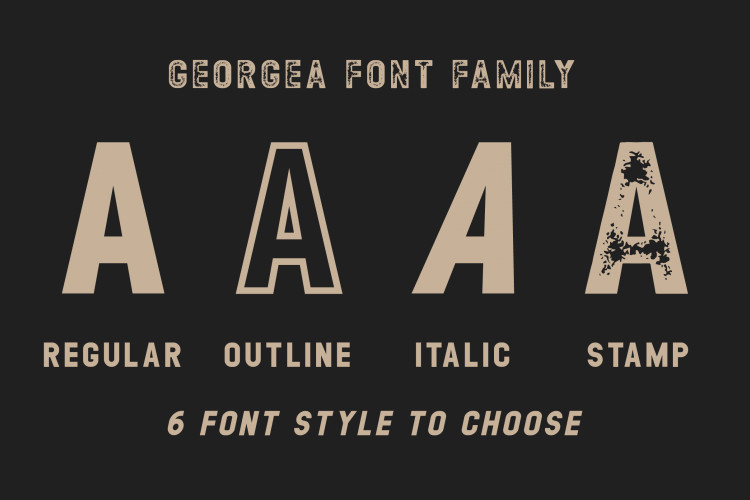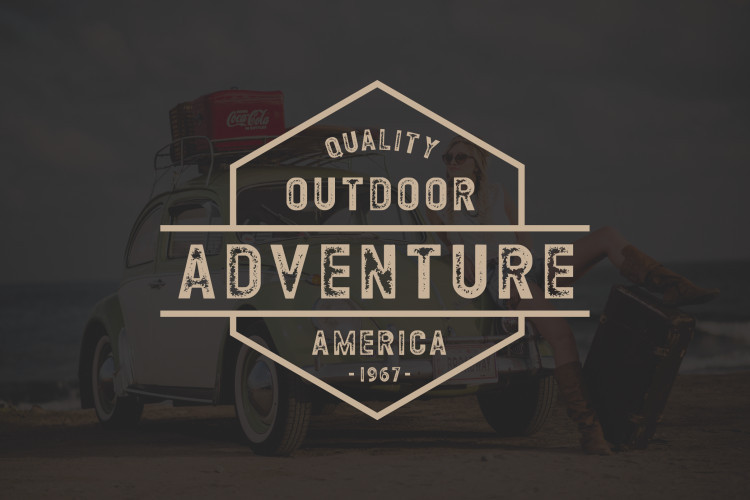
GEORGEA Typeface
This is a old time vintage looks font sans serif with natural handlettering movement, this font is great for your latest project. Introducing Georgea All Caps Font Family. GEORGEA the all in caps sans serif-font family. It includes regular, outline, and grunge version with normal & italic style. Georgea has 6 OTF & TTF font files. Choose freely for your desired designs, pair between each other version or let it stand alone. This collection will be great for logo, branding, stamp, posters, t-shirts, cards, signage, etc.